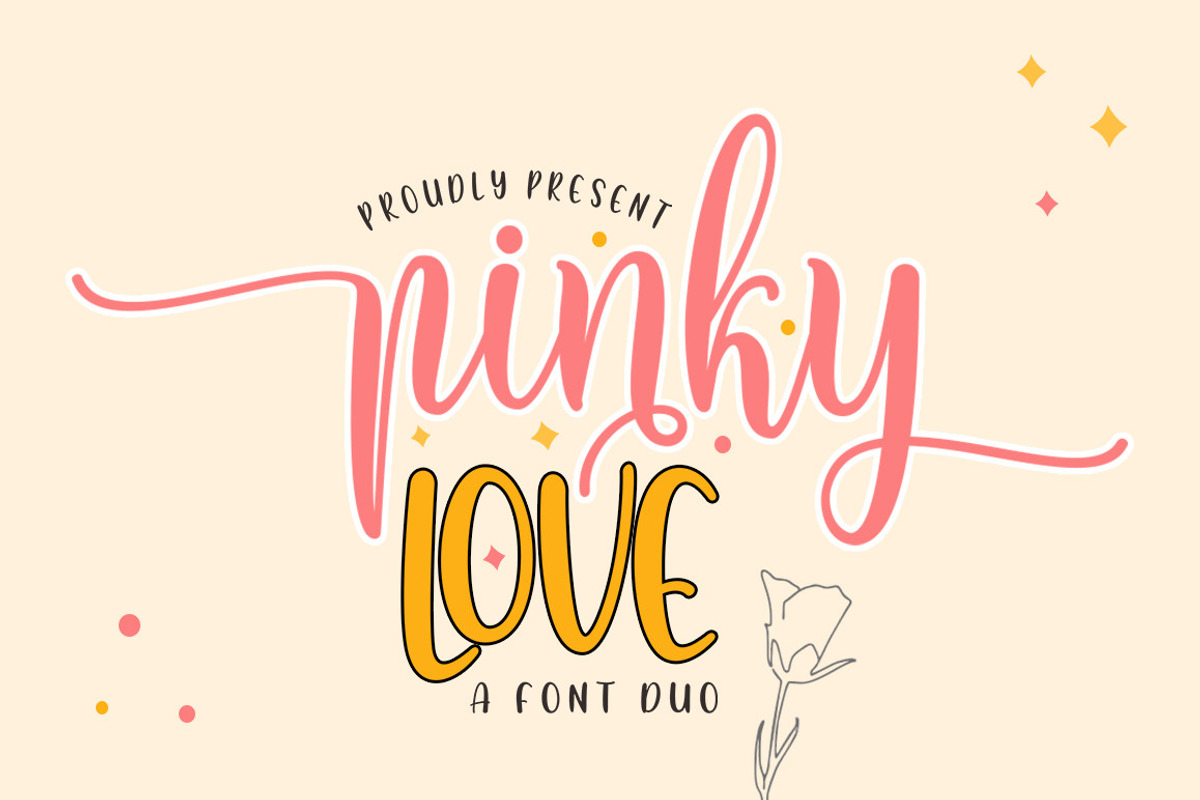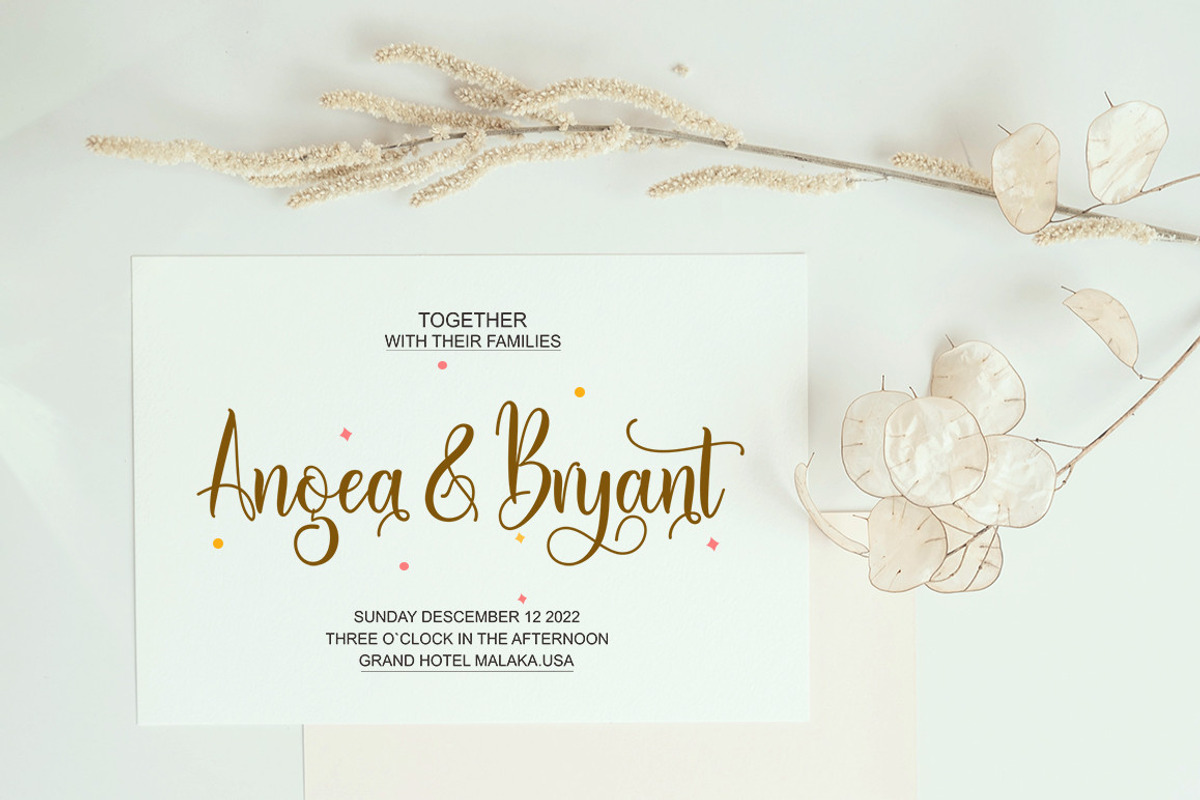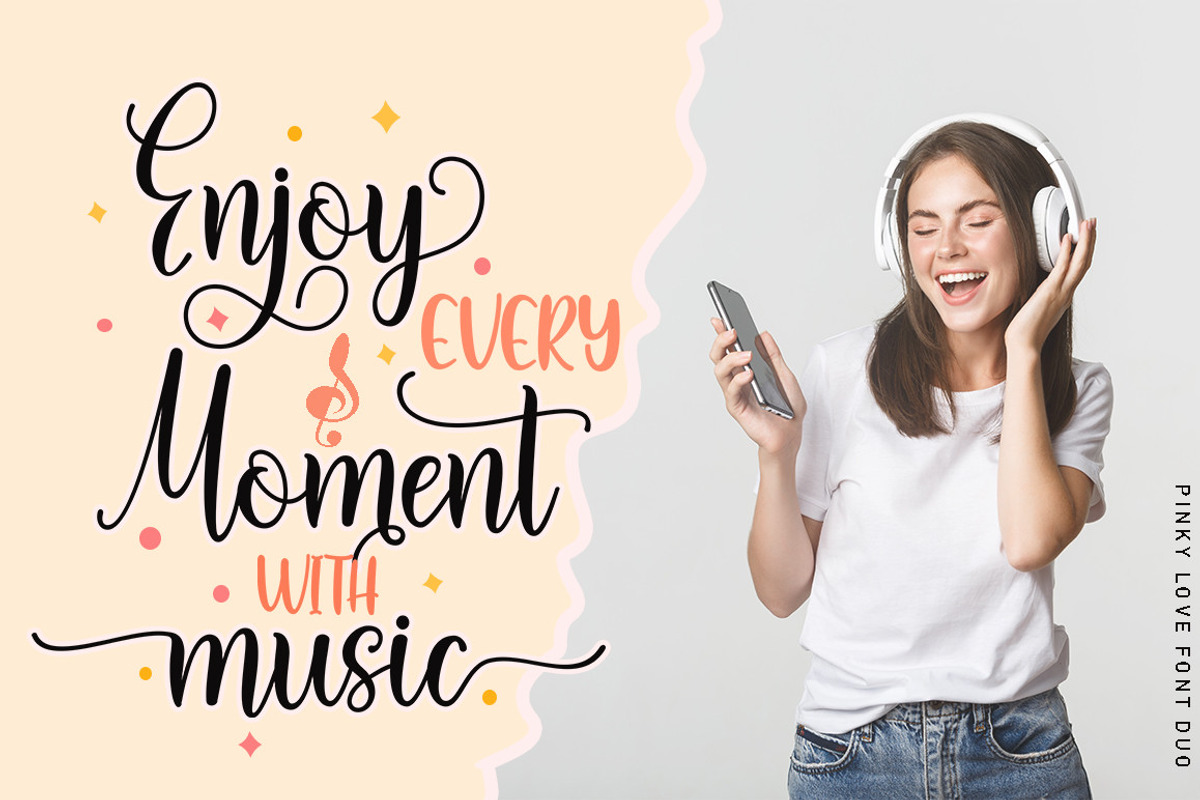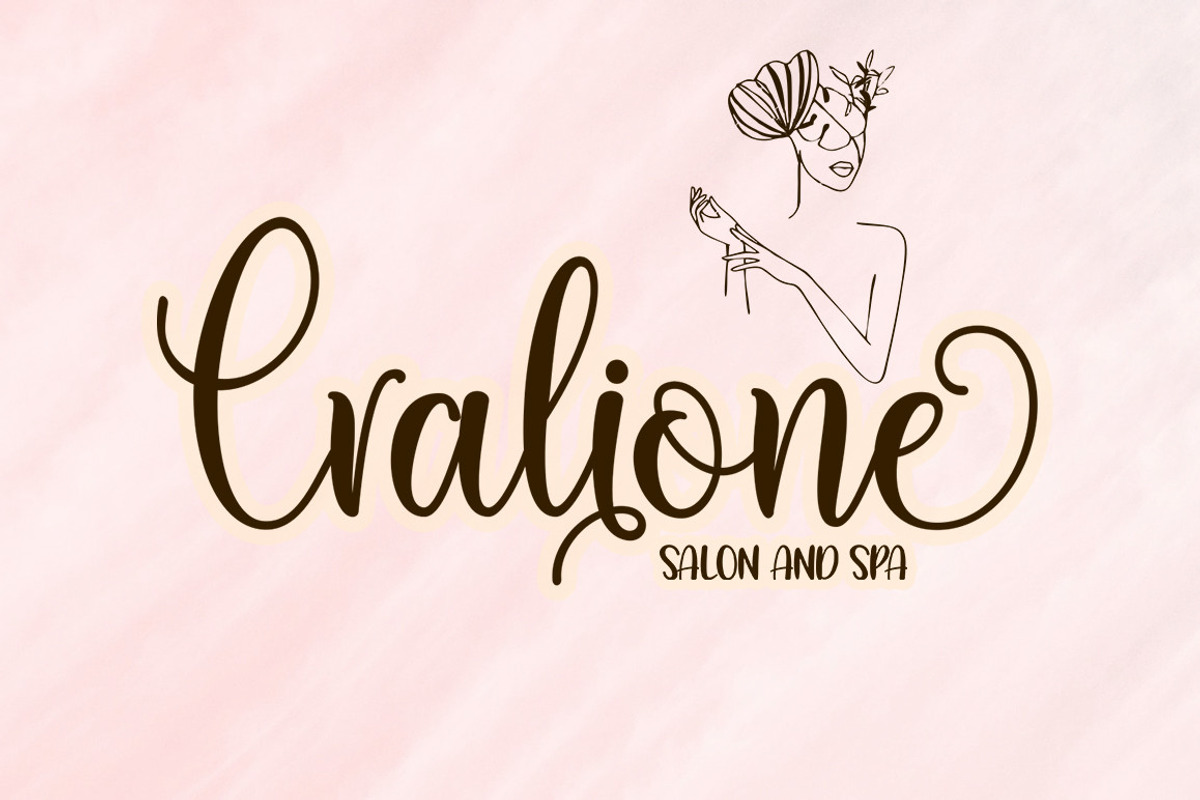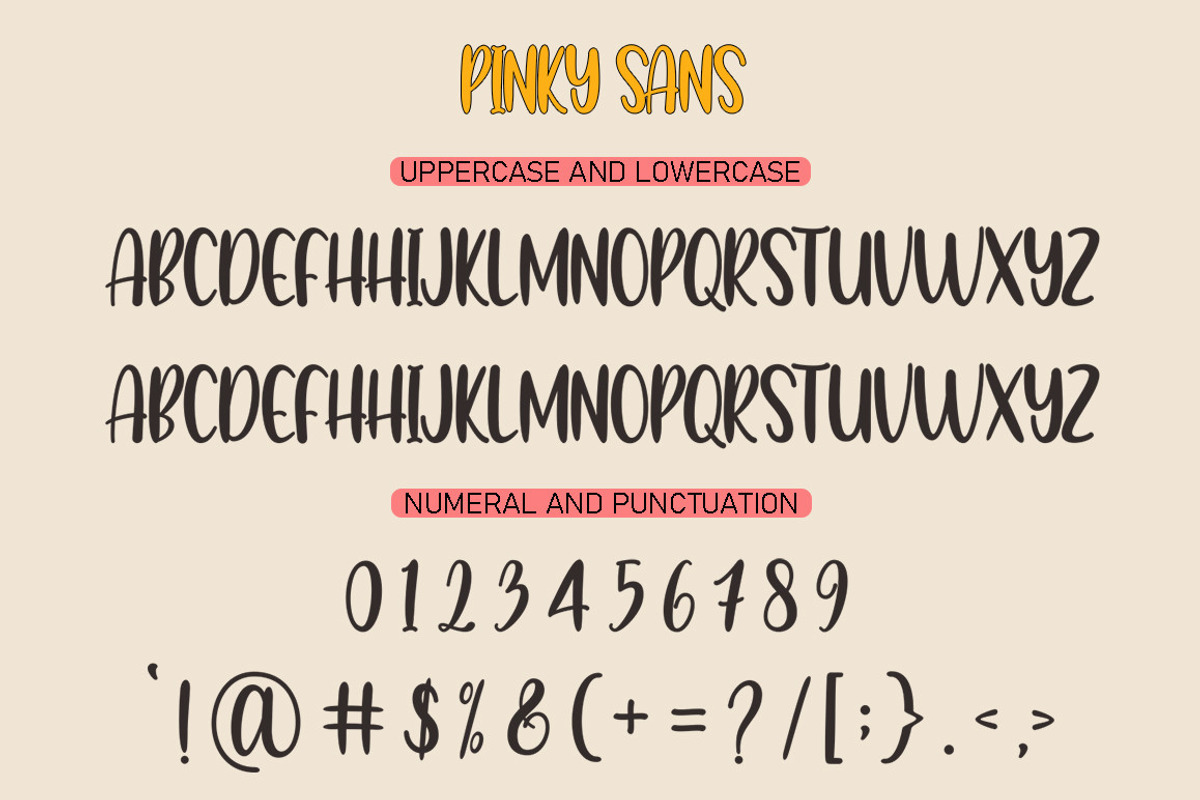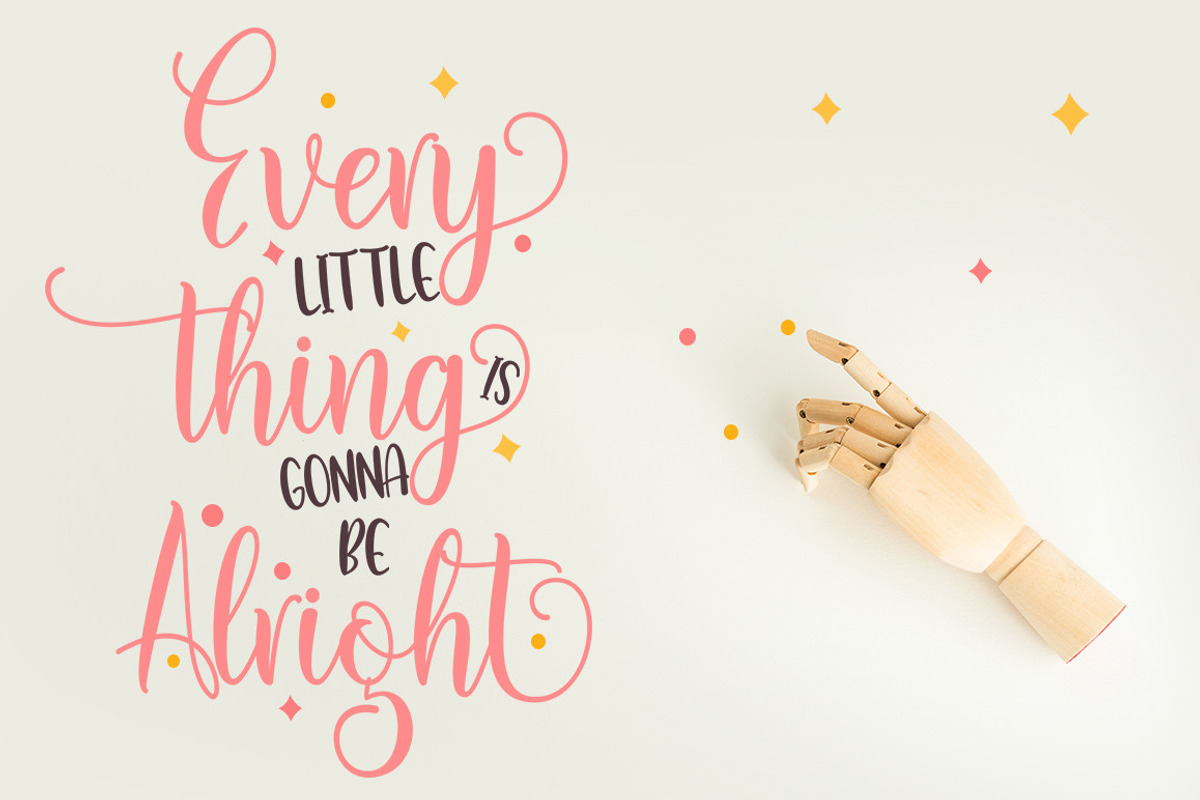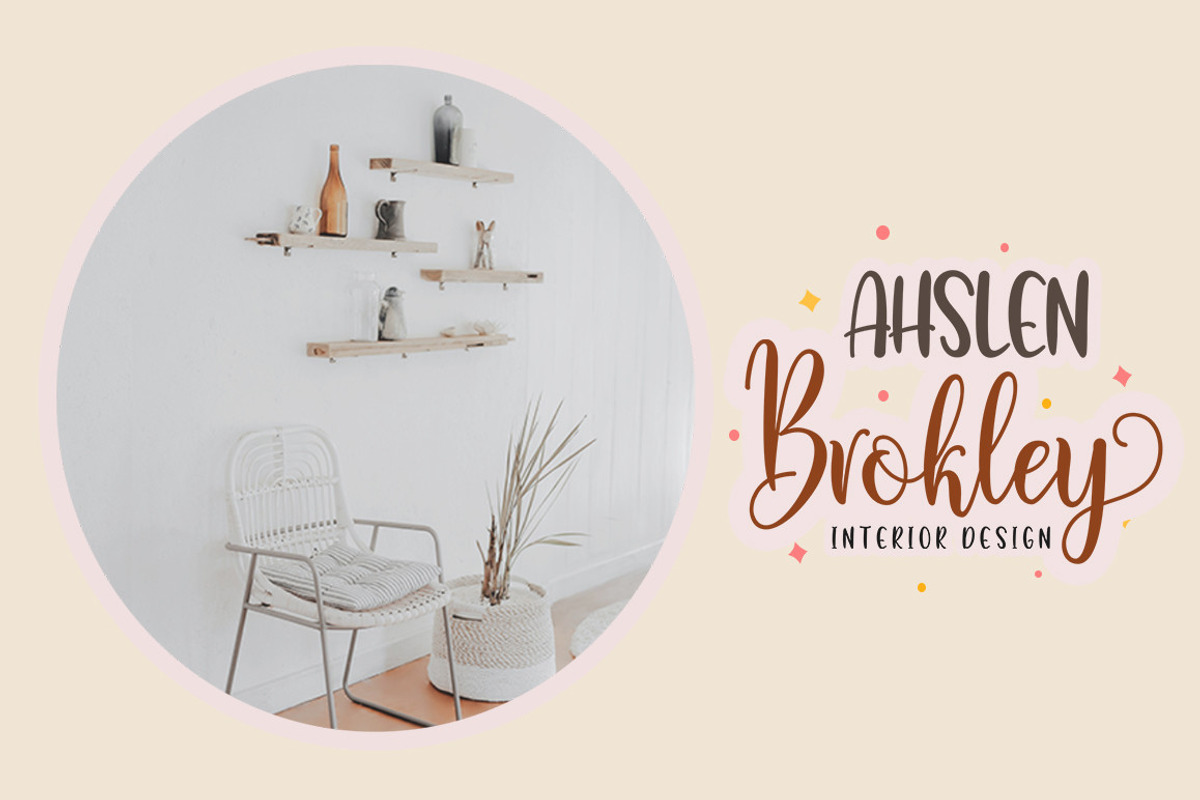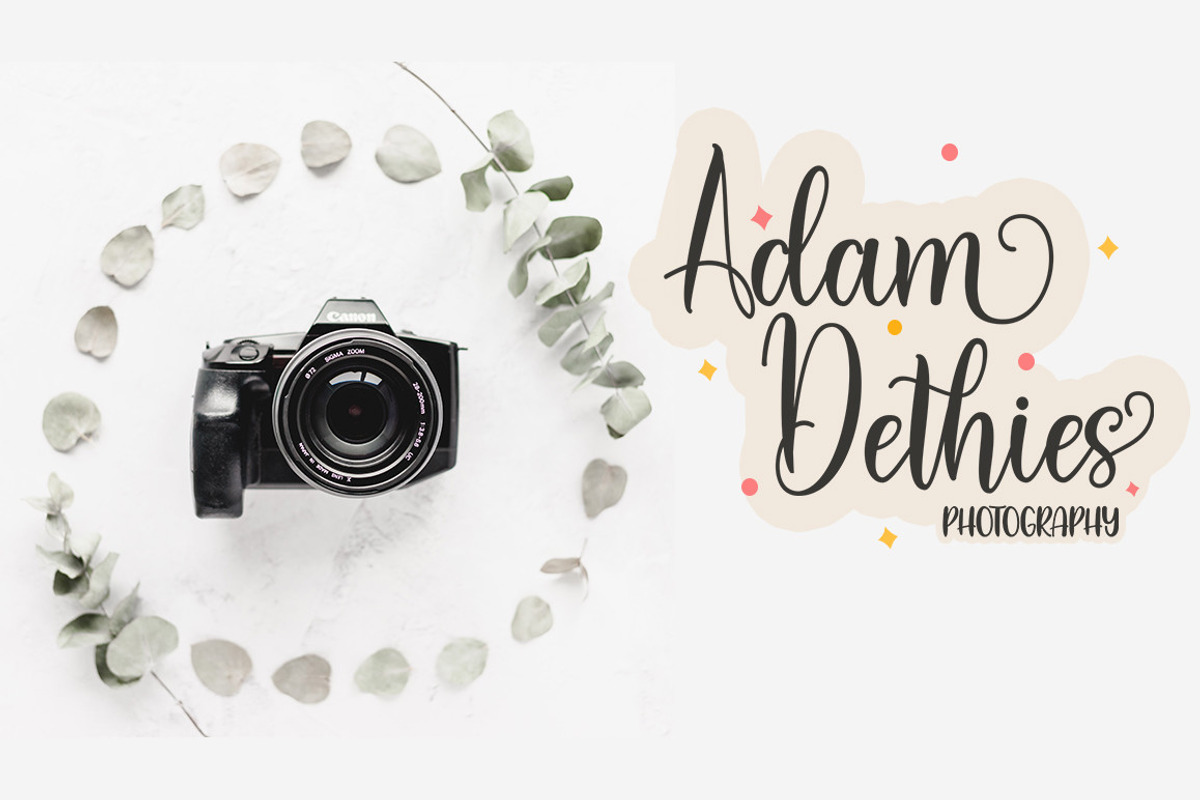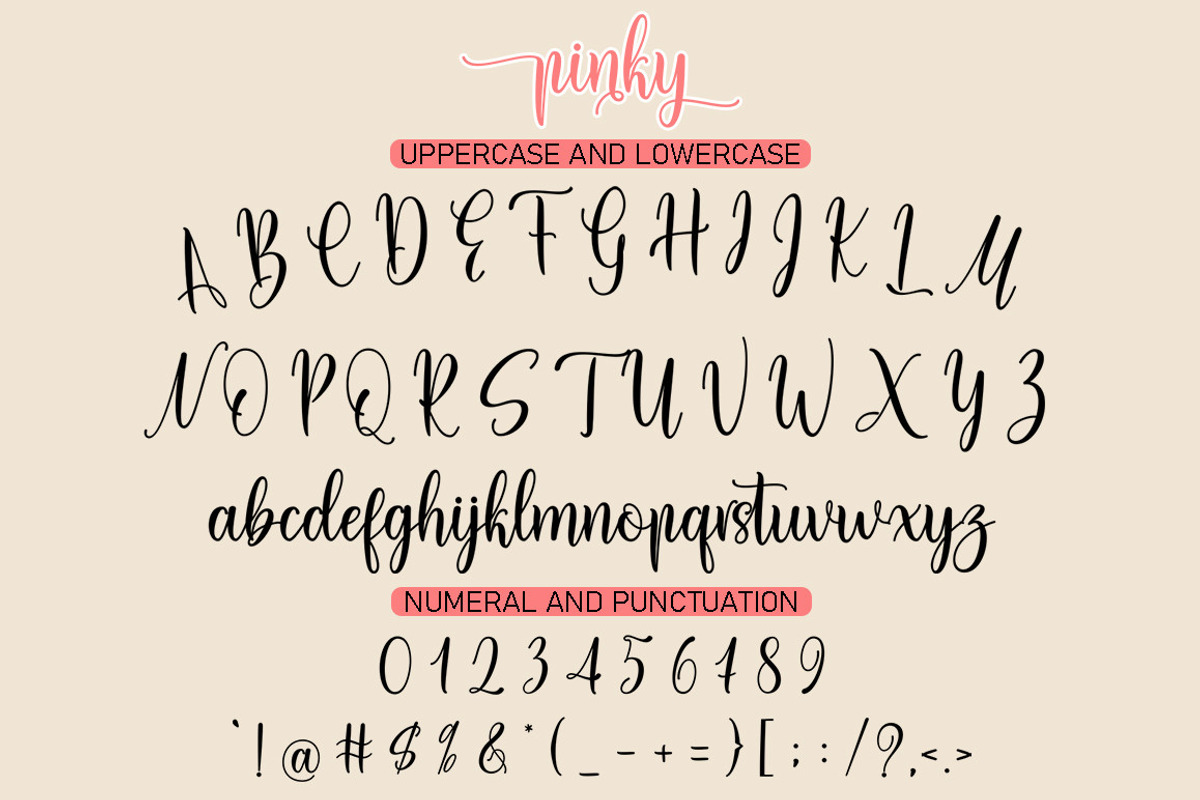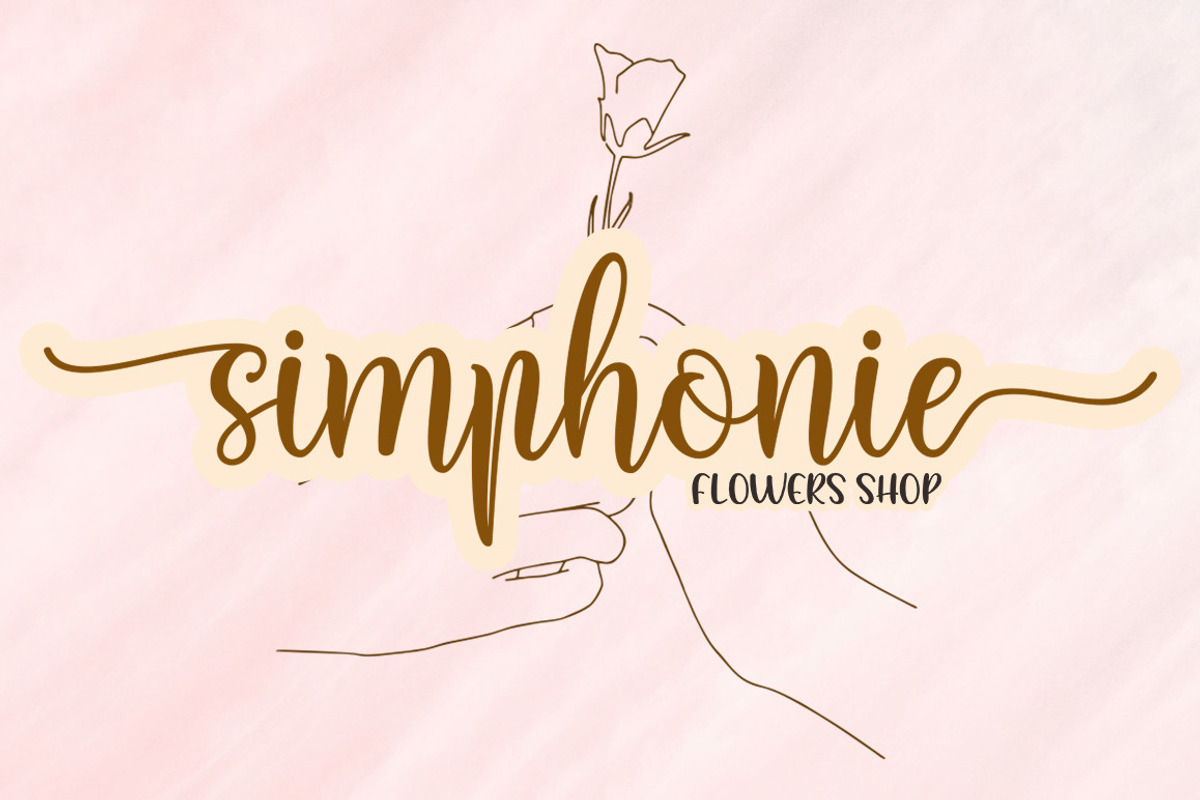
Pinky Love
Allow me to introduce Pinky Love.
A collection of carefully crafted fonts combining informal, romantic, sweet, lovely design elements and hand-drawn typographic design elements.
Pinky Love also has many alternative characters, including multiple language support.